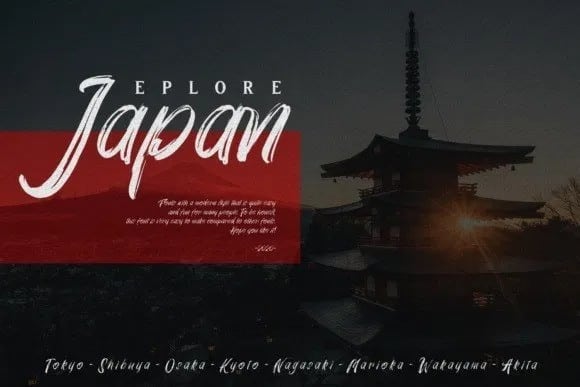
Bluezingham Brush Font
Introducing Bluezingham Brush Font, is a manual handwriting typeface with using a brush pen, which are arranged very neatly, so that it makes a font script, with a shape like a wavy calligraphy, modern, unique, smooth & cleans. It’s designed and shared by ilhamtaro. This is a casual, fun script font, created by using a brush pen. Clean and a little bit quirky, this font is the perfect fit for all of your logos, branding, social media, and crafty DIY projects.